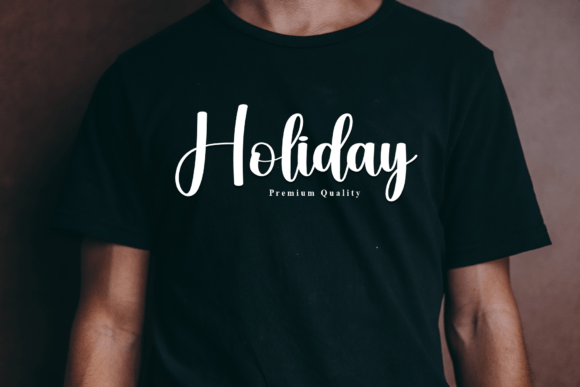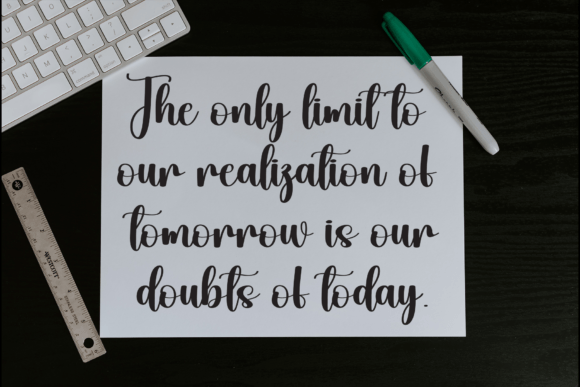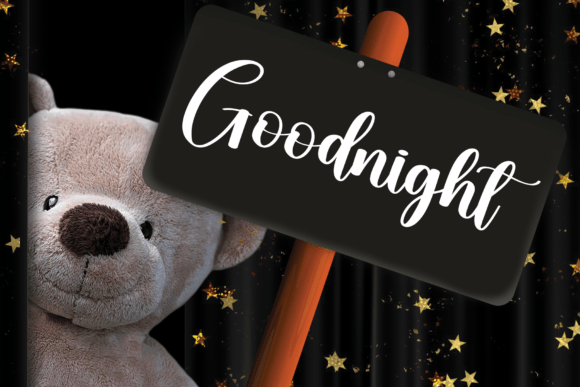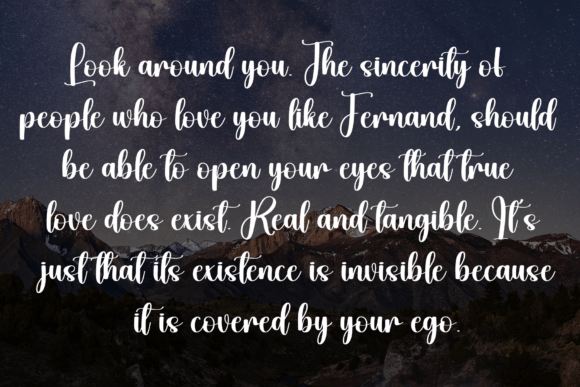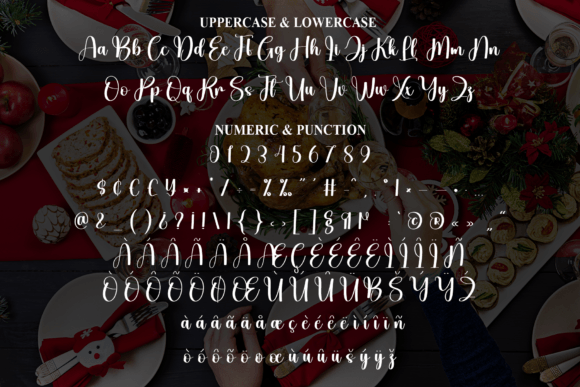
Dinner Christmas Font: A Playful and Whimsical Handwritten Display Font
Are you looking for a font that can add a touch of joy and whimsy to your designs? Look no further than the Dinner Christmas Font! This charmingly playful and personable handwritten display font is perfect for designers and crafters who want to infuse their creative projects with a sprinkle of delightful exuberance.
What is Dinner Christmas Font?
Dinner Christmas Font is a unique and eye-catching handwritten display font that is designed to bring a smile to your face. Its sweet and friendly character makes it an ideal choice for a variety of design projects, from wedding invitations and greeting cards to social media graphics and craft projects.
Key Features of Dinner Christmas Font
- Playful and Whimsical: Dinner Christmas Font is a playful and whimsical font that is sure to add a touch of fun and personality to your designs.
- Handwritten Display Font: This font is a handwritten display font that is designed to make a statement. Its unique and eye-catching lettering makes it perfect for headlines, titles, and other design elements.
- Sweet and Friendly Character: The Dinner Christmas Font has a sweet and friendly character that makes it perfect for designs that require a personal touch.
- Versatile: This font is versatile and can be used for a variety of design projects, from wedding invitations and greeting cards to social media graphics and craft projects.
Dinner Christmas Font is perfectly suited for wedding invitations and greeting cards. Its playful and whimsical character makes it an ideal choice for couples who want to add a touch of fun and personality to their wedding stationery. Additionally, its sweet and friendly character makes it perfect for greeting cards, whether it’s for a birthday, holiday, or just because.
Dinner Christmas Font is an ideal choice for designers and crafters who want to add a touch of whimsy and personality to their creative projects. Whether you’re designing a logo, creating a social media graphic, or making a craft project, this font is sure to enhance your design with its sweet and friendly character.
Tips for Using Dinner Christmas Font
- Use it for Headlines and Titles: Dinner Christmas Font is perfect for headlines and titles. Use it to add a touch of whimsy and personality to your design.
- Pair it with Other Fonts: This font pairs well with other fonts, so feel free to experiment with different font combinations to create a unique look.
- Use it for Social Media Graphics: Dinner Christmas Font is perfect for social media graphics, whether it’s for a Facebook post, Instagram story, or Twitter header.
- Make it Your Own: Don’t be afraid to make Dinner Christmas Font your own. Experiment with different colors, textures, and design elements to create a unique look.
In conclusion, Dinner Christmas Font is a charmingly playful and personable handwritten display font that is perfect for designers and crafters who want to add a touch of joy and whimsy to their creative projects. Its sweet and friendly character makes it an ideal choice for wedding invitations, greeting cards, and any design elements seeking a sprinkle of delightful exuberance. So why not give Dinner Christmas Font a try and see how it can enhance your designs?
With its versatility, playfulness, and whimsical character, Dinner Christmas Font is sure to become a favorite in your font collection. So go ahead, get creative, and make your designs shine with Dinner Christmas Font!